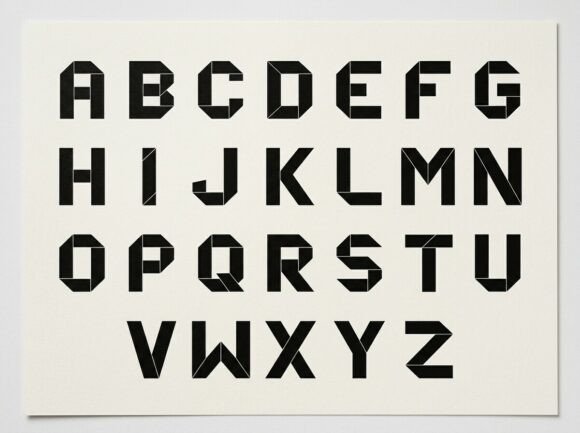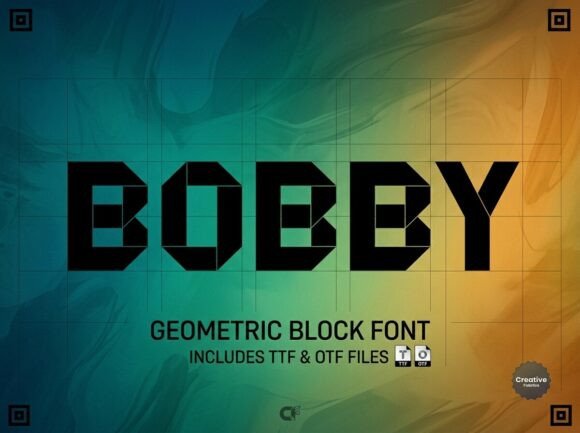
Introducing Bobby Font: The Ultimate Decorative Display Font
Are you tired of using the same old fonts for your creative projects? Do you want to make a statement and grab the attention of your audience? Look no further than Bobby Font, a stunning decorative display font designed to be the center of attention. With its unique artistic elements and strong visual personality, this font is perfect for creators who want to break away from the ordinary and add a touch of elegance to their work.
What Makes Bobby Font Special?
Bobby Font is a versatile font that is perfect for a variety of creative projects, including bold headlines, artistic logos, and creative packaging. Its unique design elements and strong visual personality make it an excellent choice for anyone looking to add a touch of sophistication and style to their work. Whether you’re a designer, craftsperson, or simply a creative enthusiast, Bobby Font is sure to impress.
Key Features of Bobby Font
- Unique Artistic Elements: Bobby Font features unique artistic elements that set it apart from other fonts. Its intricate design and attention to detail make it a standout choice for any creative project.
- Strong Visual Personality: This font has a strong visual personality that is sure to grab the attention of your audience. Its bold and eye-catching design makes it perfect for headlines, logos, and other creative applications.
- Versatile: Bobby Font is versatile enough for use in a variety of creative projects, from bold headlines and artistic logos to creative packaging and more.
- Professional and Polished Finish: Despite its bold and eye-catching design, Bobby Font maintains a professional and polished finish that is sure to impress.
Why Choose Bobby Font?
There are many reasons why Bobby Font is an excellent choice for designers and crafters. Here are just a few:
- Unique Design: Bobby Font features a unique design that is sure to grab the attention of your audience.
- Versatility: This font is versatile enough for use in a variety of creative projects, from bold headlines and artistic logos to creative packaging and more.
- Use it for Headlines: Bobby Font is perfect for bold headlines and titles. Use it to grab the attention of your audience and add a touch of elegance to your work.
- Create Artistic Logos: This font is also great for creating artistic logos and branding materials. Its unique design elements and strong visual personality make it an excellent choice for any business or organization looking to make a statement.
- Add a Touch of Sophistication: Use Bobby Font to add a touch of sophistication and style to your creative projects. Its professional and polished finish makes it perfect for any application where you want to make a lasting impression.
In conclusion, Bobby Font is a stunning decorative display font that is perfect for creators who want to break away from the ordinary and add a touch of elegance to their work. With its unique artistic elements, strong visual personality, and versatility, this font is sure to impress. Whether you’re a designer, craftsperson, or simply a creative enthusiast, Bobby Font is an excellent choice for any creative project.